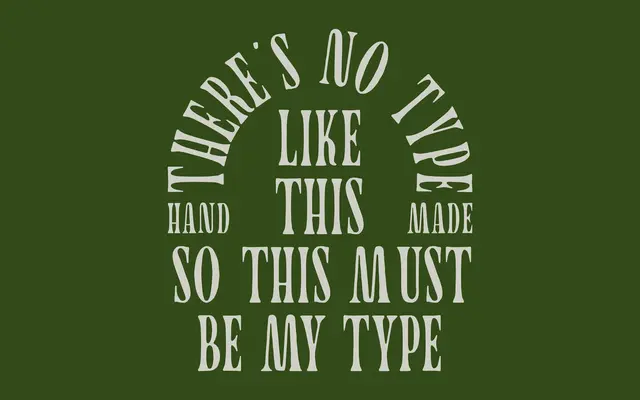
Yamas! specimen from Taylor Penton
A hand-drawn, high-contrast display face with a subtle wobble and wavy stylistic alternates accessed via Shift.
Drawn in a single sitting with the same song on loop, Yamas! carries visible hand-made energy through high contrast strokes and a gentle irregularity in the letterforms. A set of wavy alternates adds a second register for when a looser, more undulating feel is wanted. The 220-glyph set covers basic Latin plus a broad range of accented characters for Western and Central European languages.
A single-weight, high-contrast display face with hand-drawn origins and a deliberate wobble; the wavy alternates and informal energy place it firmly in the expressive display category rather than any conventional serif or sans classification.